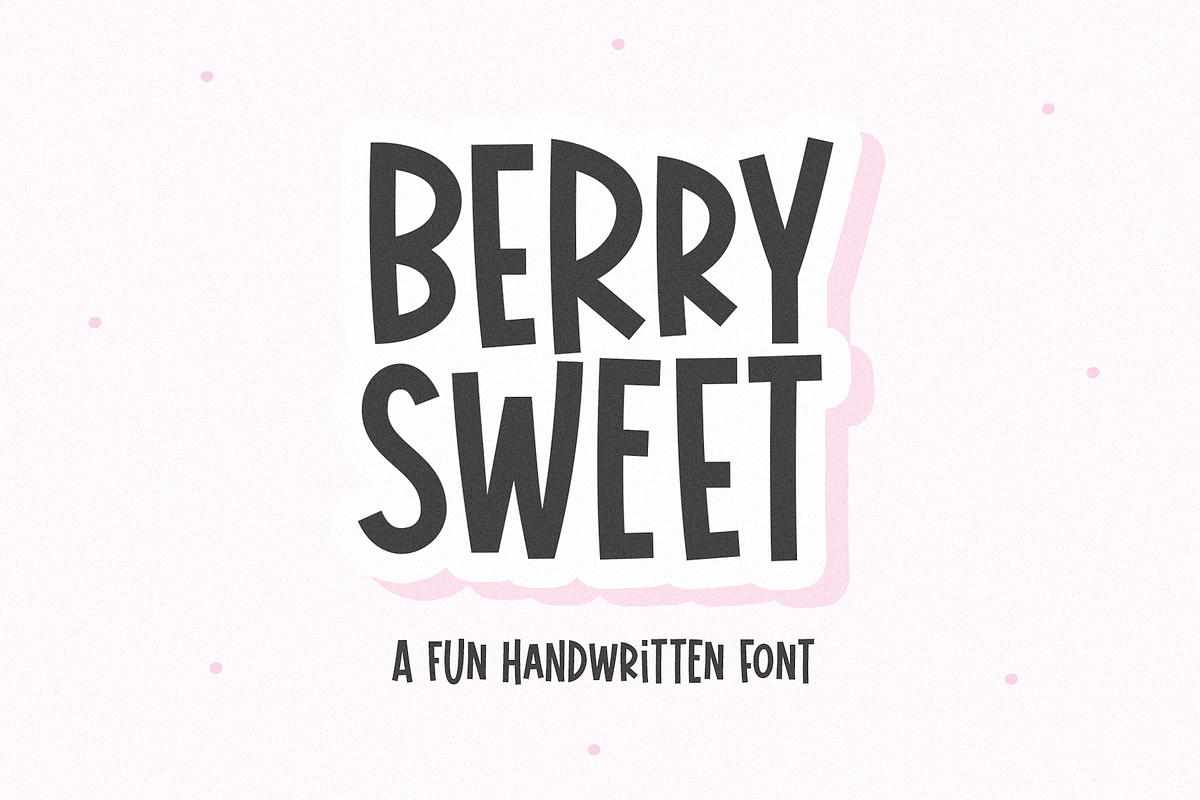
Berry Sweet | Fun Handwritten Font Free Download is a cheerful and lively typeface that adds a splash of personality to any design. With its bouncy letters and casual flow, this font is perfect for kids' projects, greeting cards, product packaging, stickers, and social media graphics. It’s designed to bring joy, warmth, and a handmade touch to everything you create.
Using the Berry Sweet | Fun Handwritten Font Free Download lets you infuse your designs with charm and approachability. The playful style makes it ideal for lighthearted branding, personal blogs, and creative DIY projects. It’s easy to read, full of character, and sure to bring a smile to your audience.